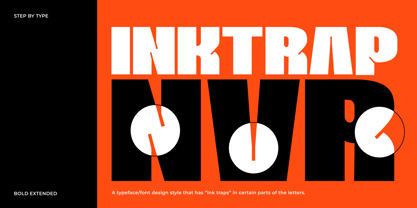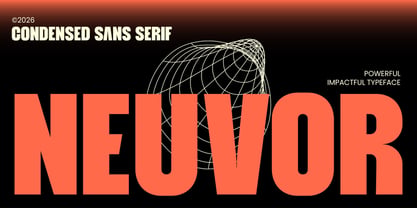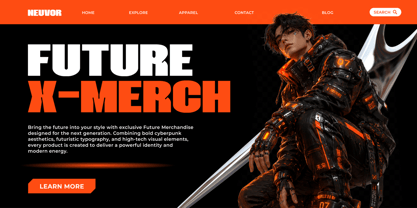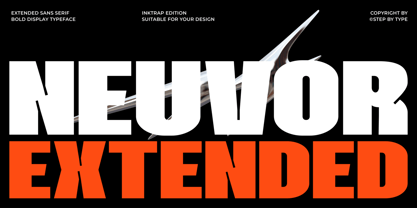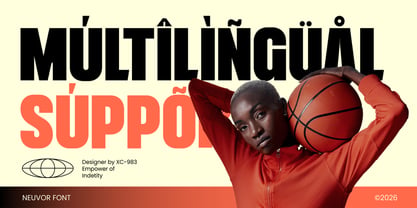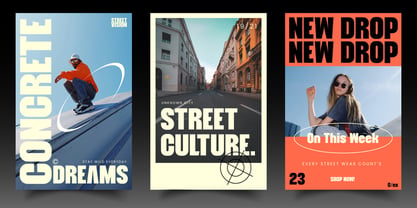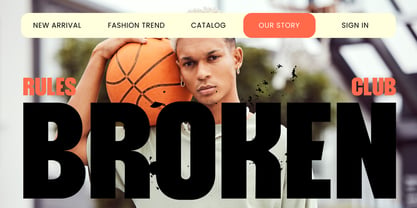
Neuvor Extended
by Steptype
The Neuvor Extended Font Family was designed by Saeful Maarif and published by Steptype. Neuvor Extended contains 2 styles and family package options. More about this family
Neuvor is a bold sans built for pure impact. With its towering proportions, tight spacing, and heavy vertical strokes, Neuvor commands attention the moment it hits the page. This is a typeface designed to be loud — made for headlines, posters, and brands that refuse to be ignored.
Every letterform is engineered for density and power: clean, confident, and space-efficient, so you can stack big statements into tight layouts without losing punch. The result is a modern, athletic voice that feels equally at home on a streetwear drop, a sports poster, a magazine cover, or a bold brand identity.
Great for: posters, headlines, sports and athletic branding, streetwear, packaging, magazine covers, social media graphics, logos, and any project where impact is non-negotiable.
Designers: Saeful Maarif
Foundry: Steptype